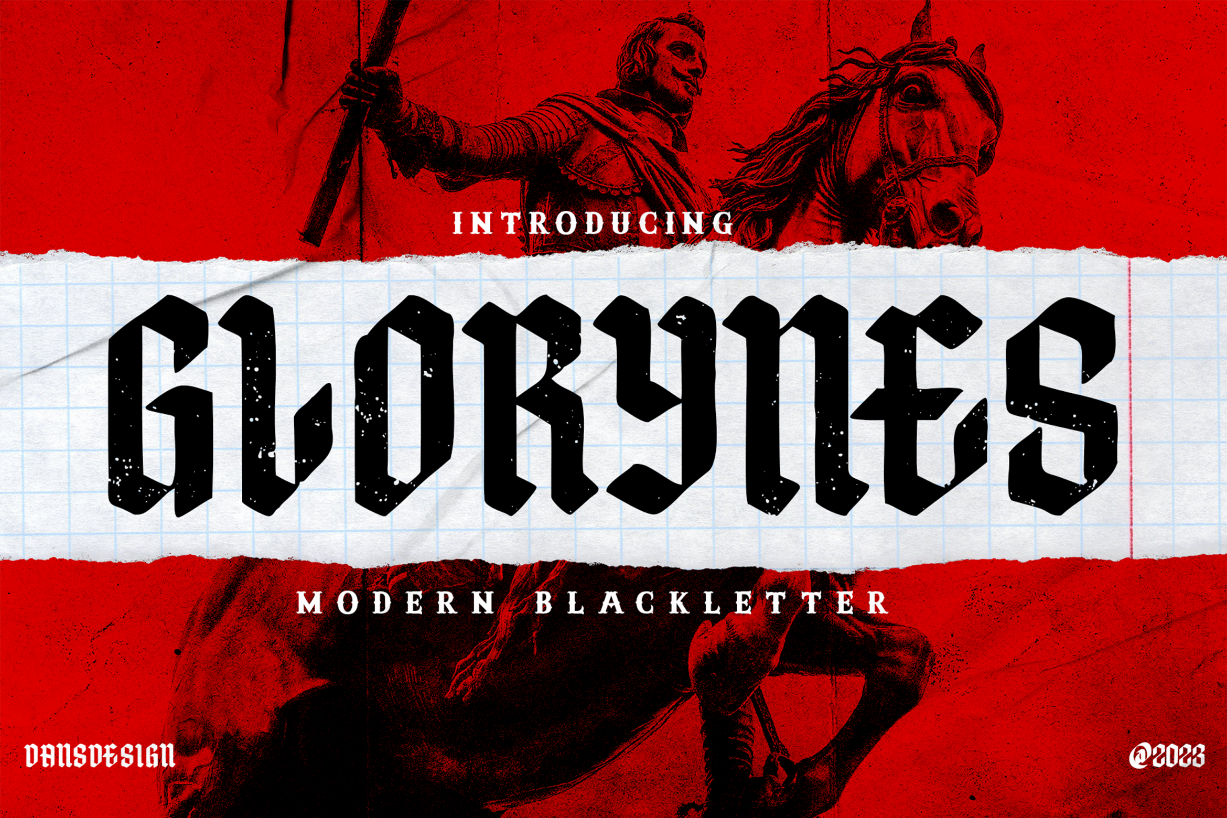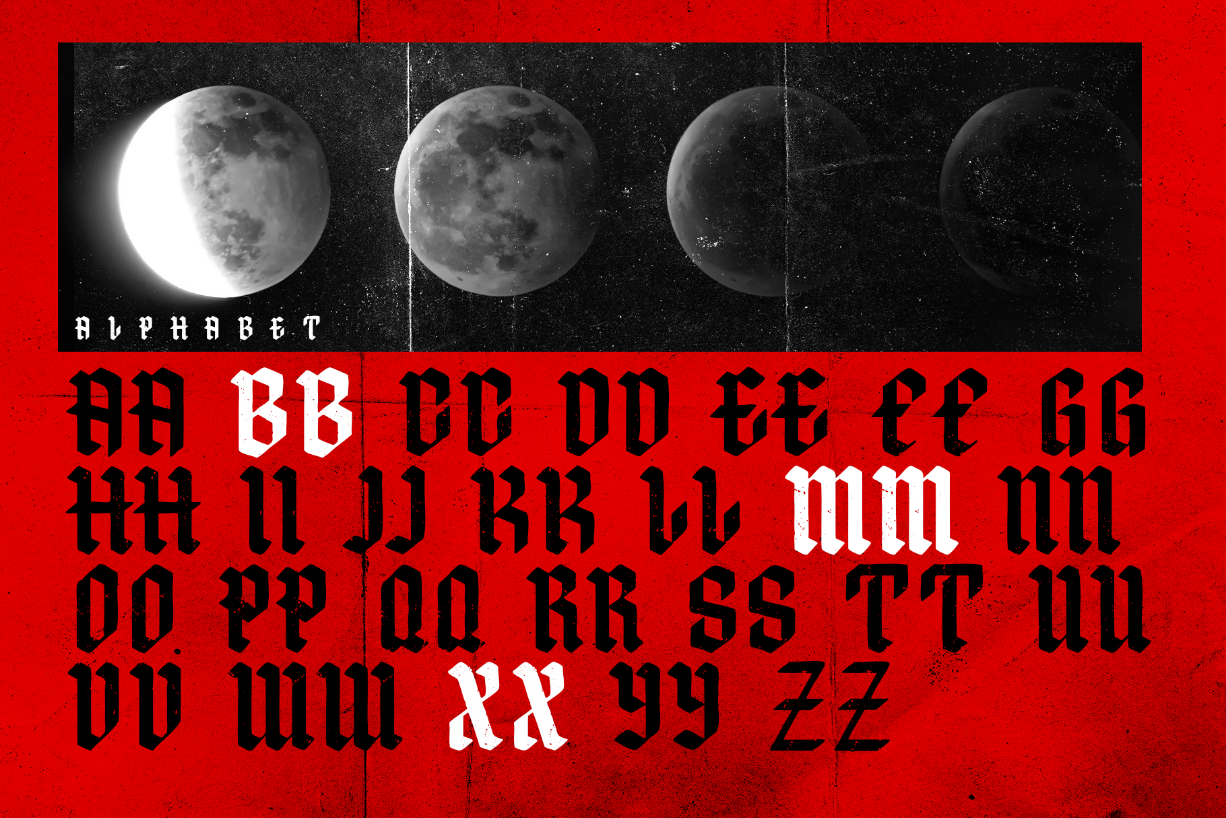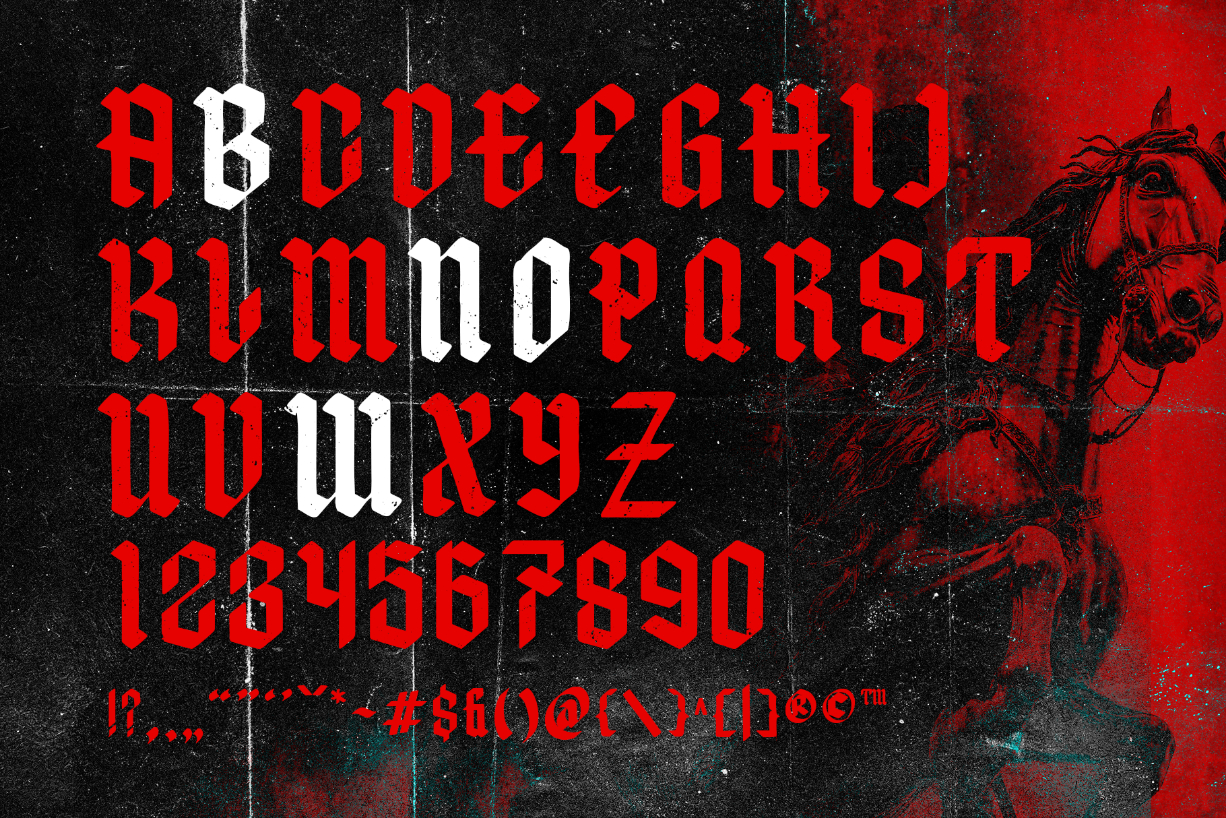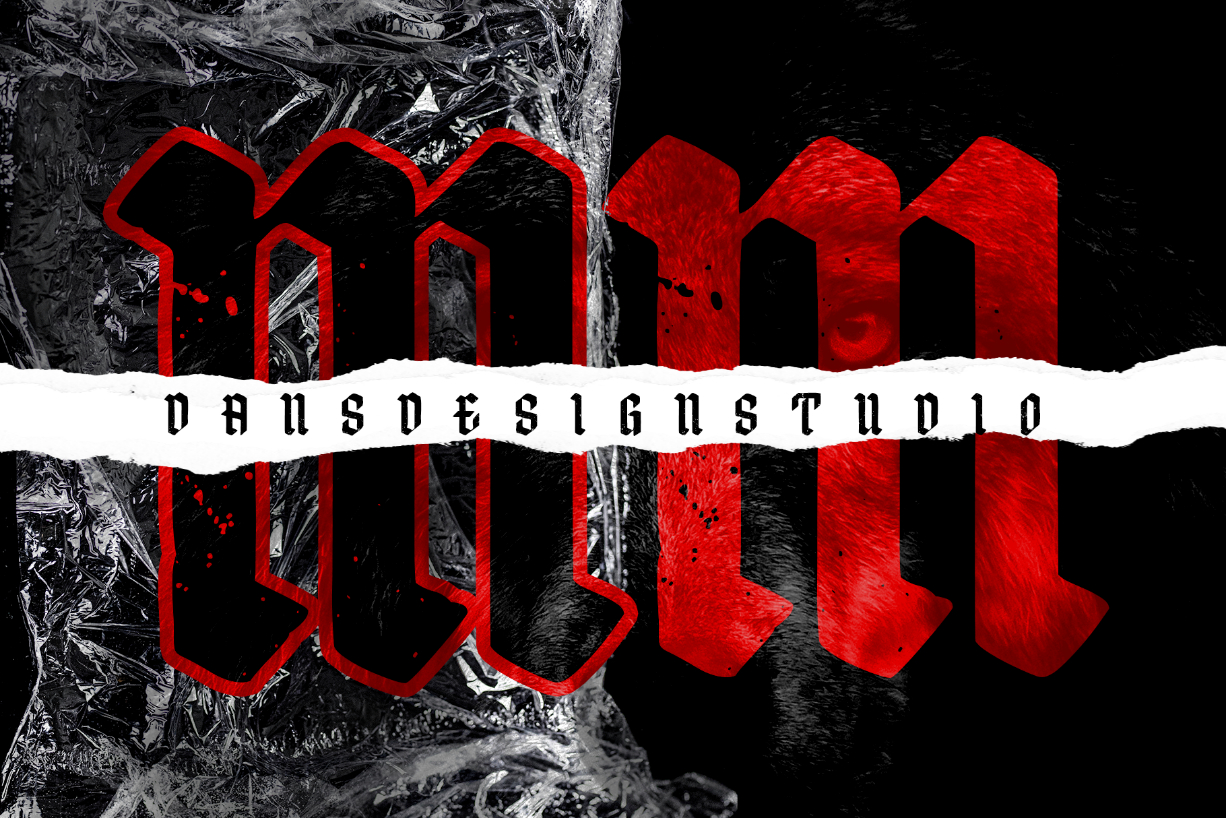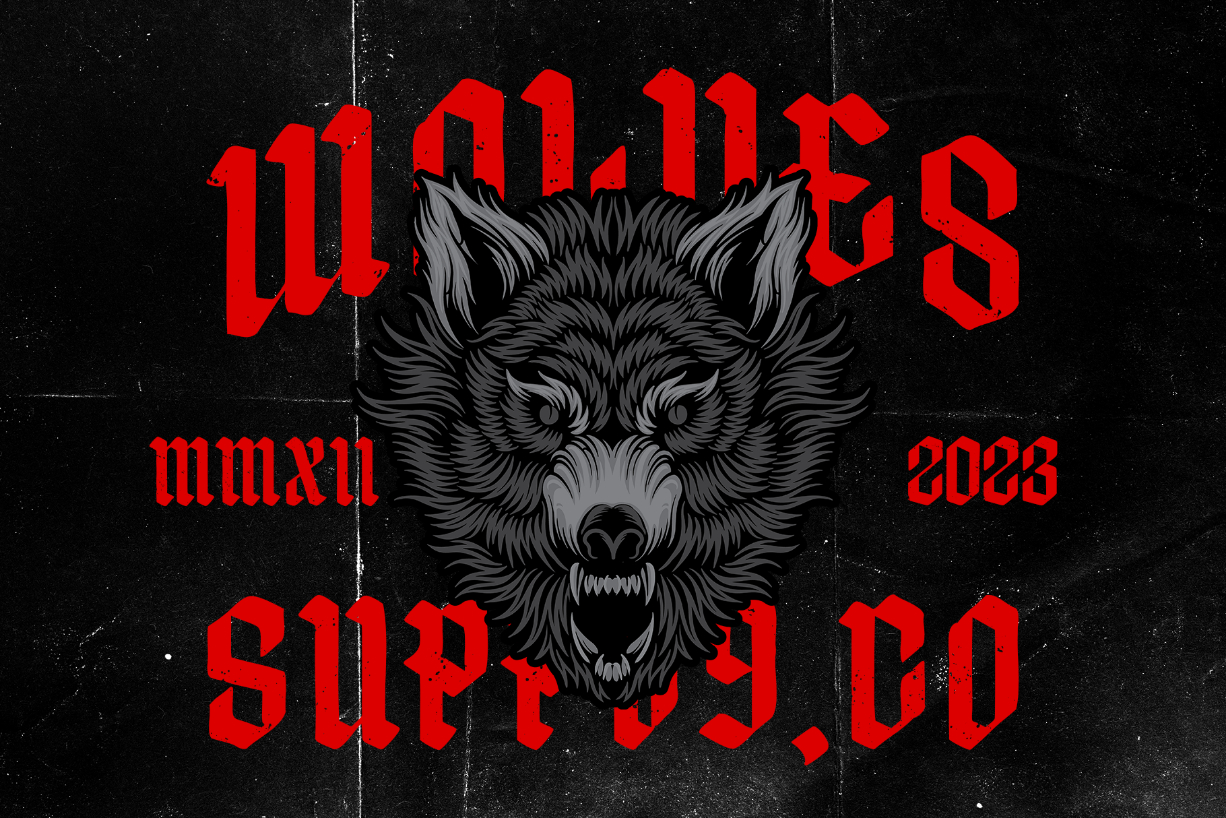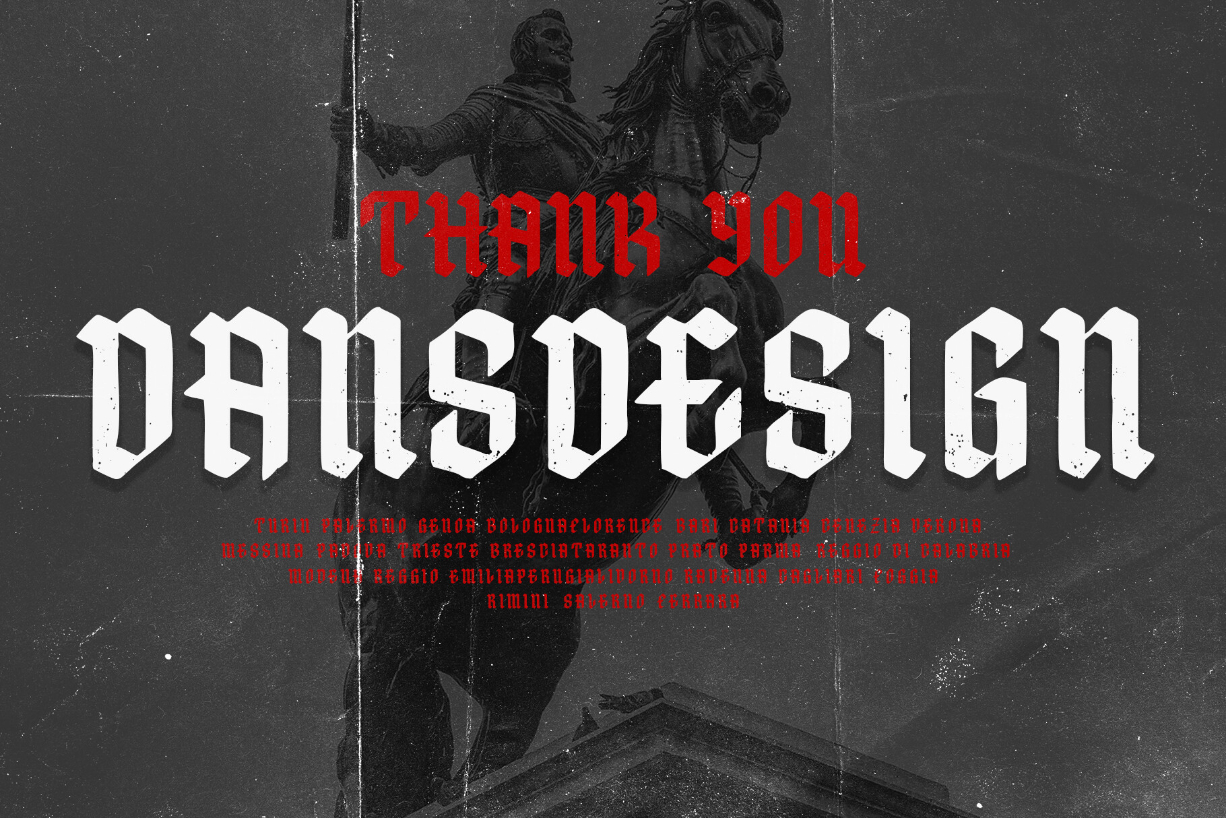
Glorynes Font
About Glorynes Font
GLORYNES Modern Blackletters Font is a distinct, highly detailed, and Horror Metal Font. It would make a great choice for exquisite Music, Posters, retro-urban designs, tattoo business branding, logos, vintage designs, and more.